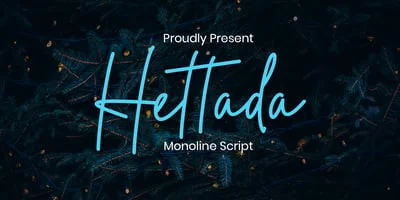
Hettada Font
Hettada Font is perfect for artistic design applications including creative studio branding, experimental typography projects, contemporary art exhibitions, avant-garde publications, innovative marketing campaigns, artistic portfolio designs, gallery signage, and cutting-edge editorial layouts. This distinctive typeface brings bold creativity and expressive character to projects that celebrate artistic innovation and unconventional design approaches.
What makes Hettada Font exciting is its unique blend of structured geometry with expressive artistic flourishes that creates a truly innovative typographic voice for contemporary creative communication. The font features unconventional letterforms with artistic details and creative variations that challenge traditional typography while maintaining practical functionality. Its artistic character appeals to audiences who appreciate creative risk-taking and design innovation.
The Hettada Font family includes various creative styles such as Regular, Bold, Light, and experimental alternates with artistic variations that enhance the contemporary aesthetic. These innovative options provide comprehensive design solutions for projects that require distinctive typographic expression and artistic authenticity in competitive creative markets.
This specialized artistic typeface brings genuine creative authenticity to contemporary design projects. Art galleries and creative agencies choose Hettada Font for its exceptional ability to communicate artistic sophistication and creative innovation. The font's experimental nature makes it perfect for contemporary art spaces, design studios, and creative professionals who want to project artistic leadership and unconventional thinking. Its distinctive character ensures memorable visual impact while maintaining the authentic aesthetic that defines exceptional contemporary creative design work.